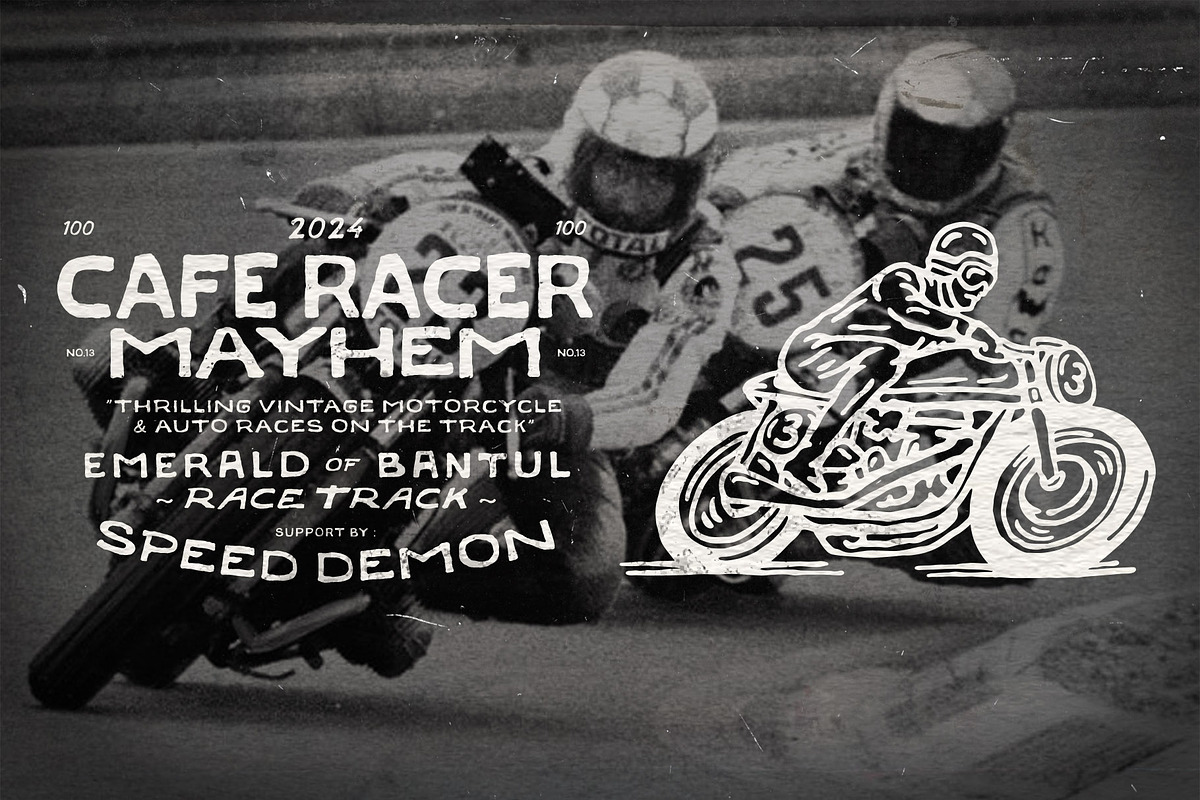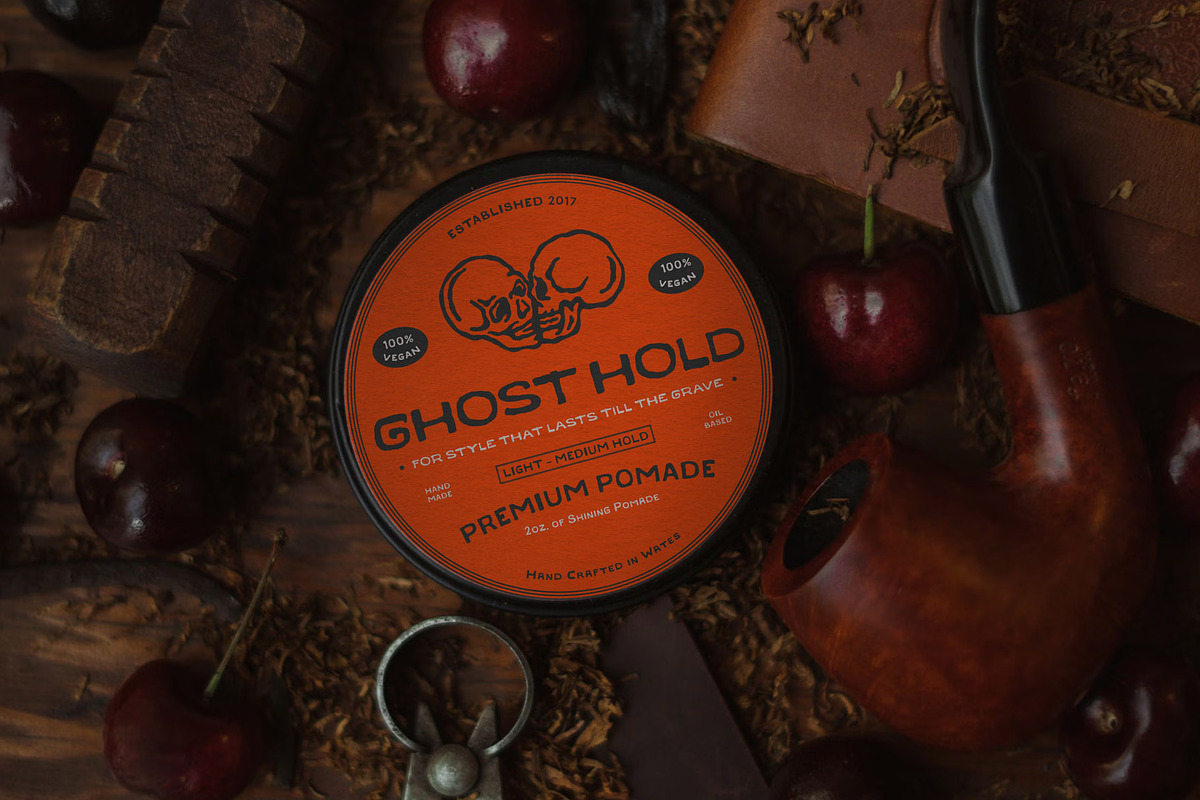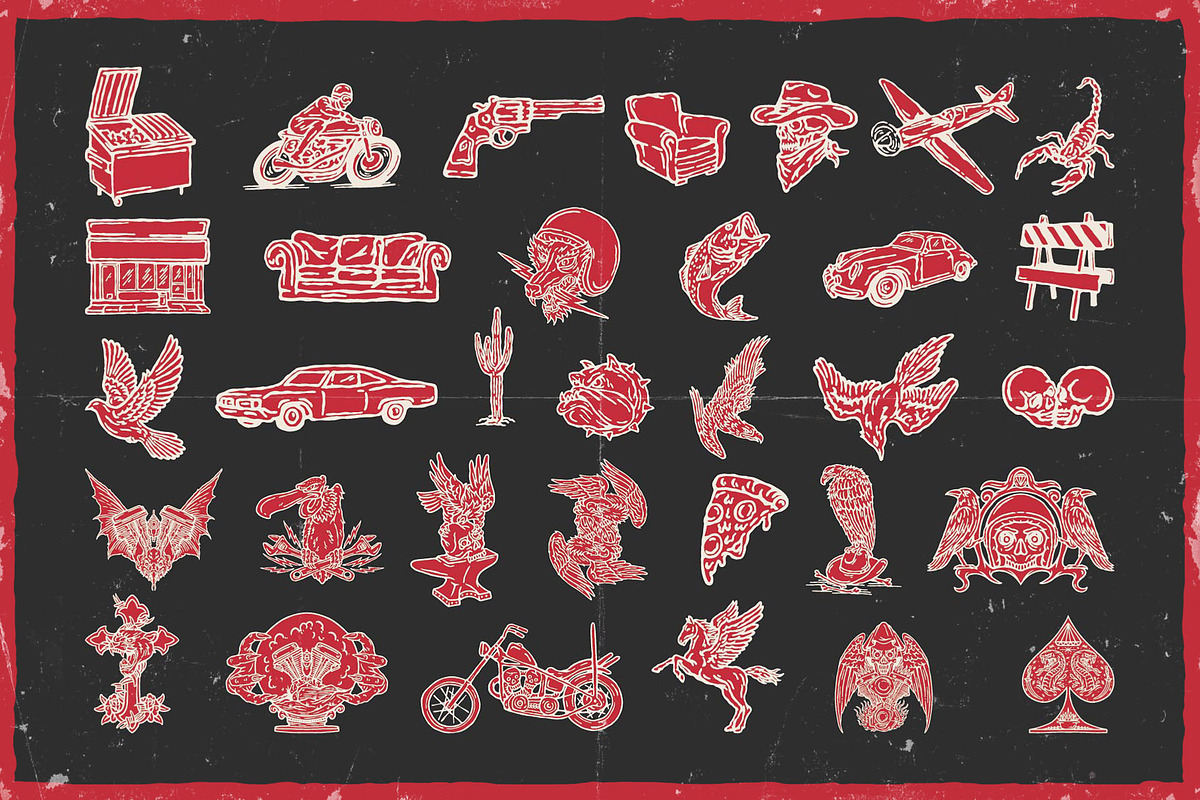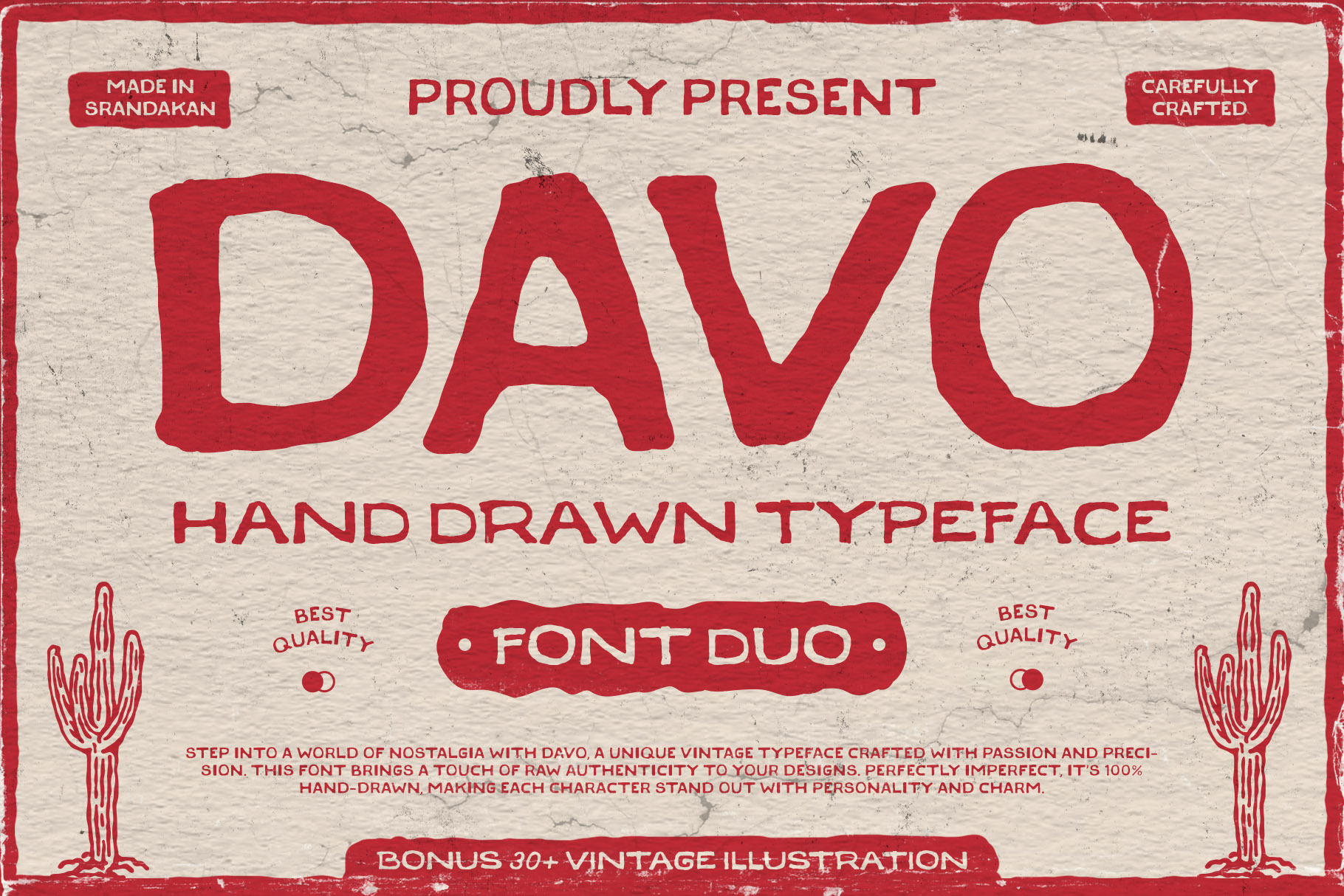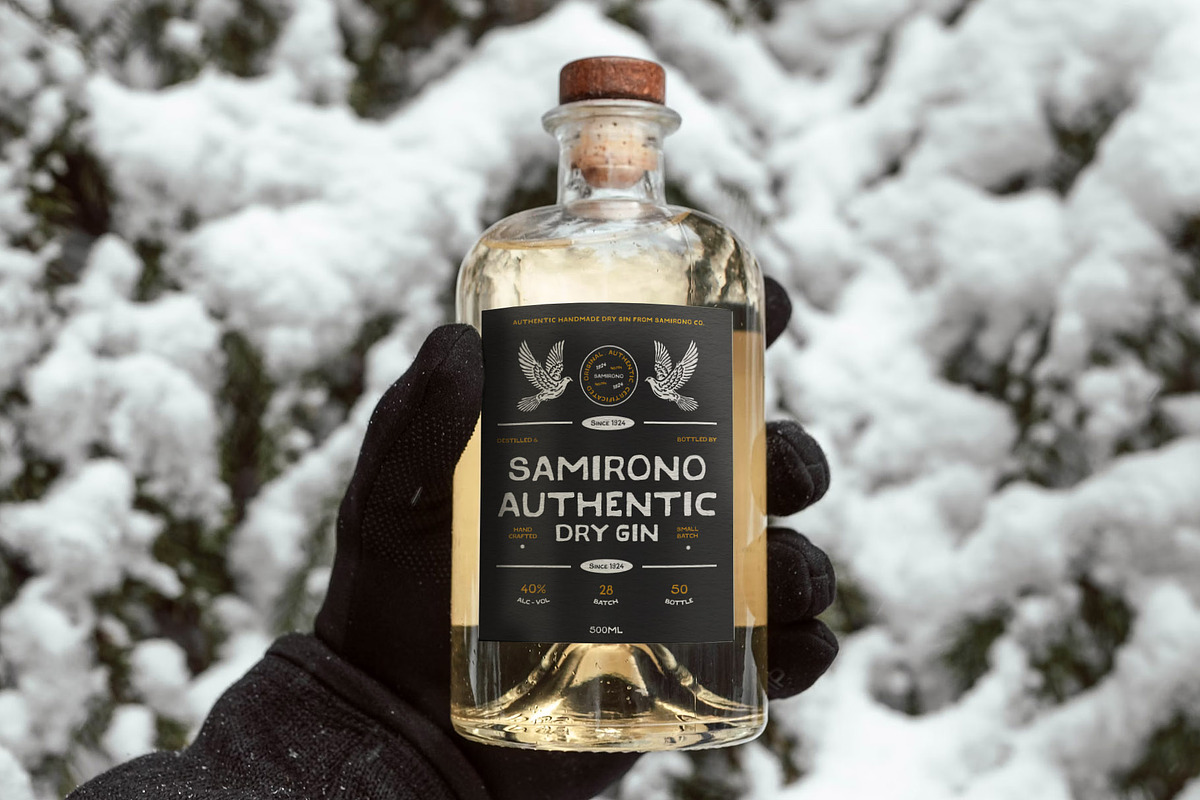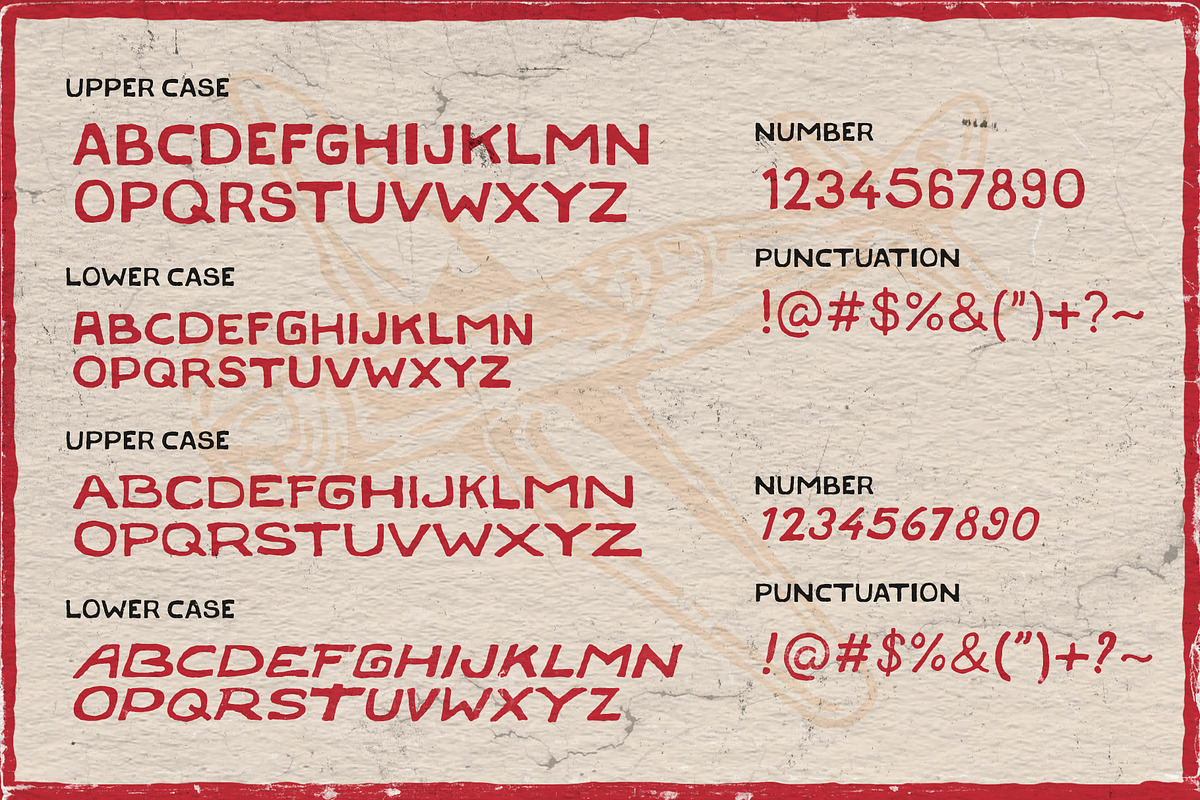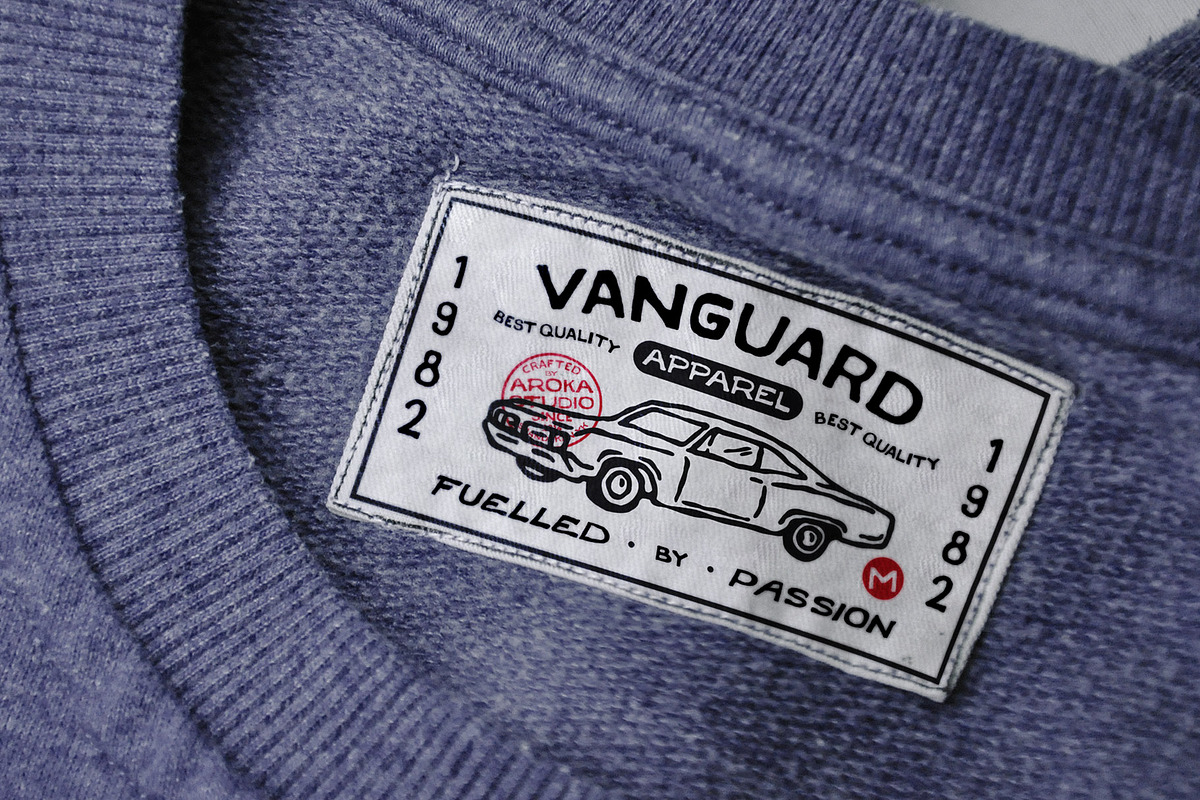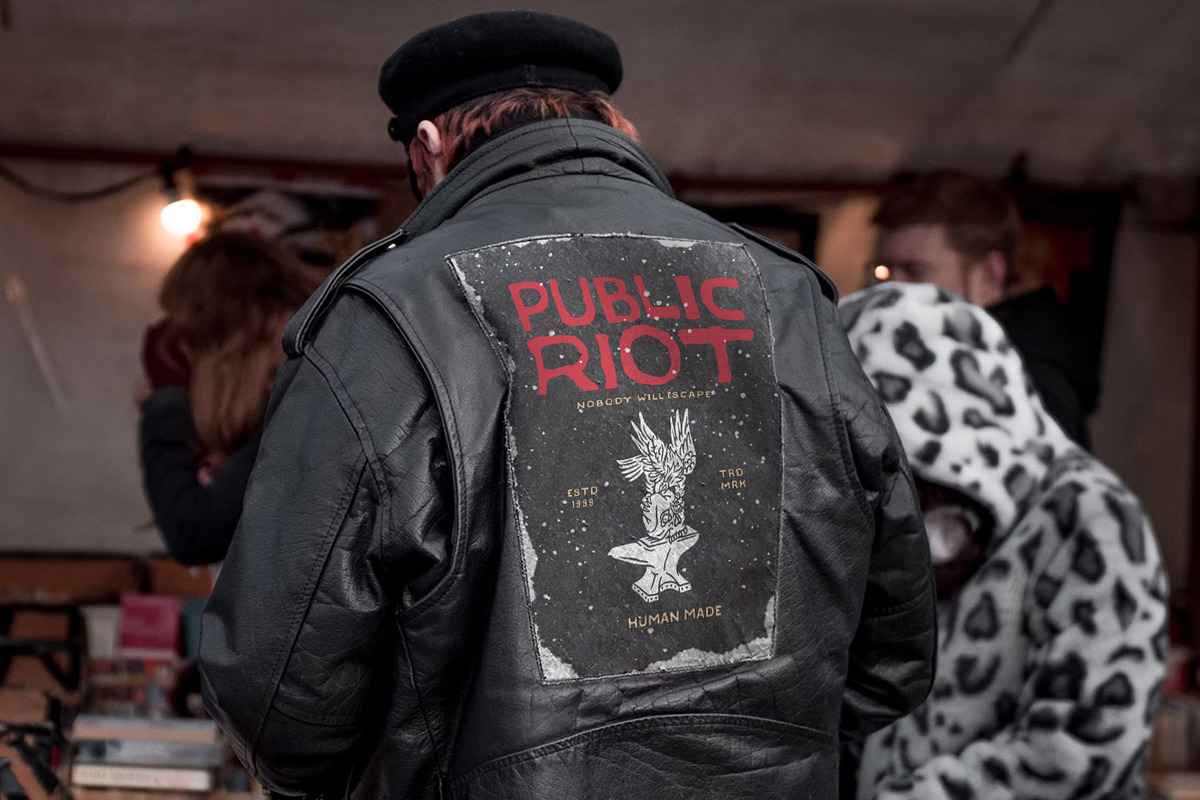
DAVO - HAND DRAWN TYPEFACE
DAVO FONT font that I worked on freehand!! there are 2 fonts there with their illustration pairs, which are in PNG, PDF, SVG and Adobe illustration formats!! good luck!